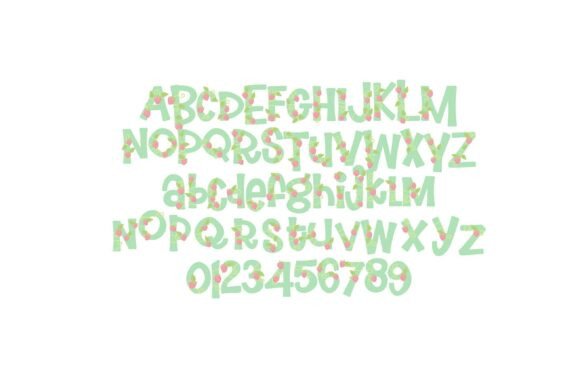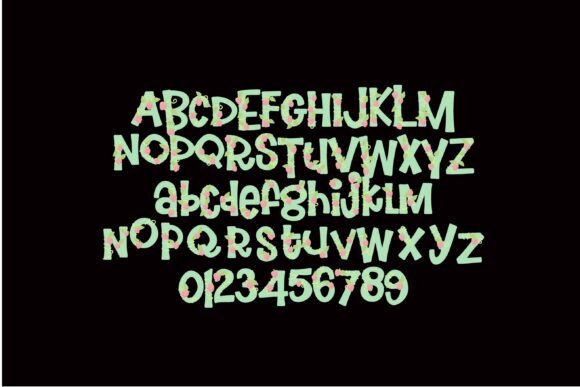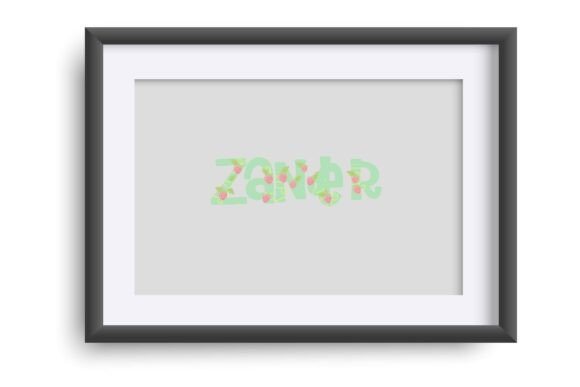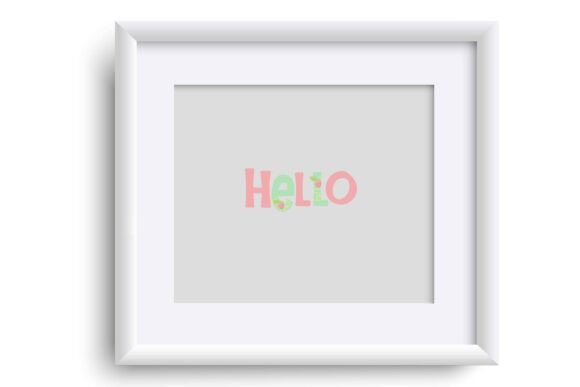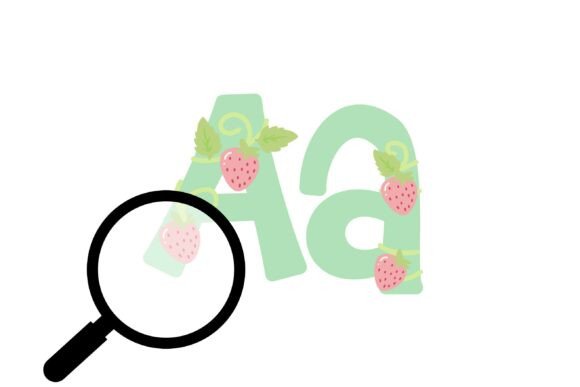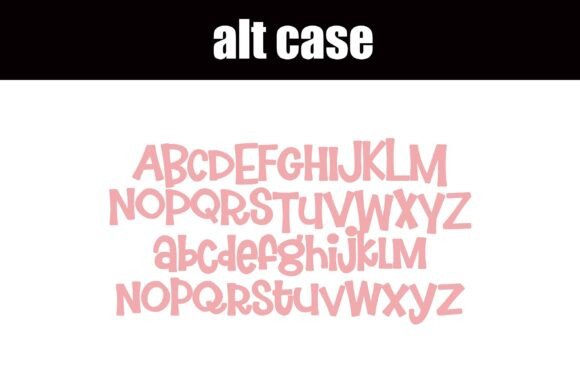
Berry Best Font: The Sweetest Design Asset for Your Projects
Are you looking for a design asset that can add a touch of whimsy and charm to your projects? Look no further than Berry Best Pastel, a full-color SVG font that’s inspired by a sunny day in the garden. This delightful display typeface is perfect for designers and crafters who want to create visually appealing and cohesive branding, packaging, and stationery layouts.
The Inspiration Behind Berry Best Pastel
Berry Best Pastel is a font that’s deeply rooted in nature. Its design is inspired by the vibrant colors and playful textures of a garden on a sunny day. The font features thick, friendly letterforms rendered in a refreshing mix of strawberry-pink and mint-green hues, giving it a unique and eye-catching appearance. The delicate, hand-drawn strawberry vines that twist around the characters add a touch of elegance and sophistication, making this font perfect for a wide range of design projects.
Key Features of Berry Best Pastel
So, what makes Berry Best Pastel such a special design asset? Here are just a few of its key features:
- Full-color SVG design: Berry Best Pastel is a full-color SVG font, which means it’s perfect for use in digital and print designs. Its scalable design ensures that it will look great in any size or resolution.
- Hand-drawn strawberry vines: The delicate, hand-drawn strawberry vines that twist around the characters add a touch of whimsy and charm to the font. Each vine is complete with tiny green leaves and plump, speckled red berries, giving the font a unique and eye-catching appearance.
- Refreshing color palette: The font’s color palette is inspired by the vibrant colors of a garden on a sunny day. The strawberry-pink and mint-green hues are refreshing, playful, and perfect for designs that need a touch of whimsy.
- Thick, friendly letterforms: The letterforms in Berry Best Pastel are thick and friendly, making them easy to read and perfect for use in display text.
Use Cases for Berry Best Pastel
Berry Best Pastel is a versatile design asset that can be used in a wide range of projects. Here are just a few ideas to get you started:
- Organic farmers’ market branding: The font’s natural, garden-inspired design makes it perfect for use in branding and marketing materials for organic farmers’ markets.
- Children’s boutique graphics: The font’s playful, whimsical design makes it perfect for use in graphics and branding materials for children’s boutiques and clothing stores.
- Fresh fruit packaging: The font’s colorful, garden-inspired design makes it perfect for use in packaging materials for fresh fruit and other food products.
- Cheerful spring stationery layouts: The font’s bright, playful design makes it perfect for use in stationery layouts and other paper products for spring.
Benefits of Using Berry Best Pastel
So, why should you choose Berry Best Pastel for your design projects? Here are just a few benefits of using this delightful font:
- Unique and eye-catching design: Berry Best Pastel has a unique and eye-catching design that’s sure to grab attention and make your designs stand out.
- Professional design intelligence: Despite its playful design, Berry Best Pastel delivers a sense of professional design intelligence that’s perfect for businesses and brands that want to look polished and put-together.
- Legendary cottagecore warmth: The font’s garden-inspired design gives it a warm, welcoming feel that’s perfect for designs that need a touch of cottagecore charm.